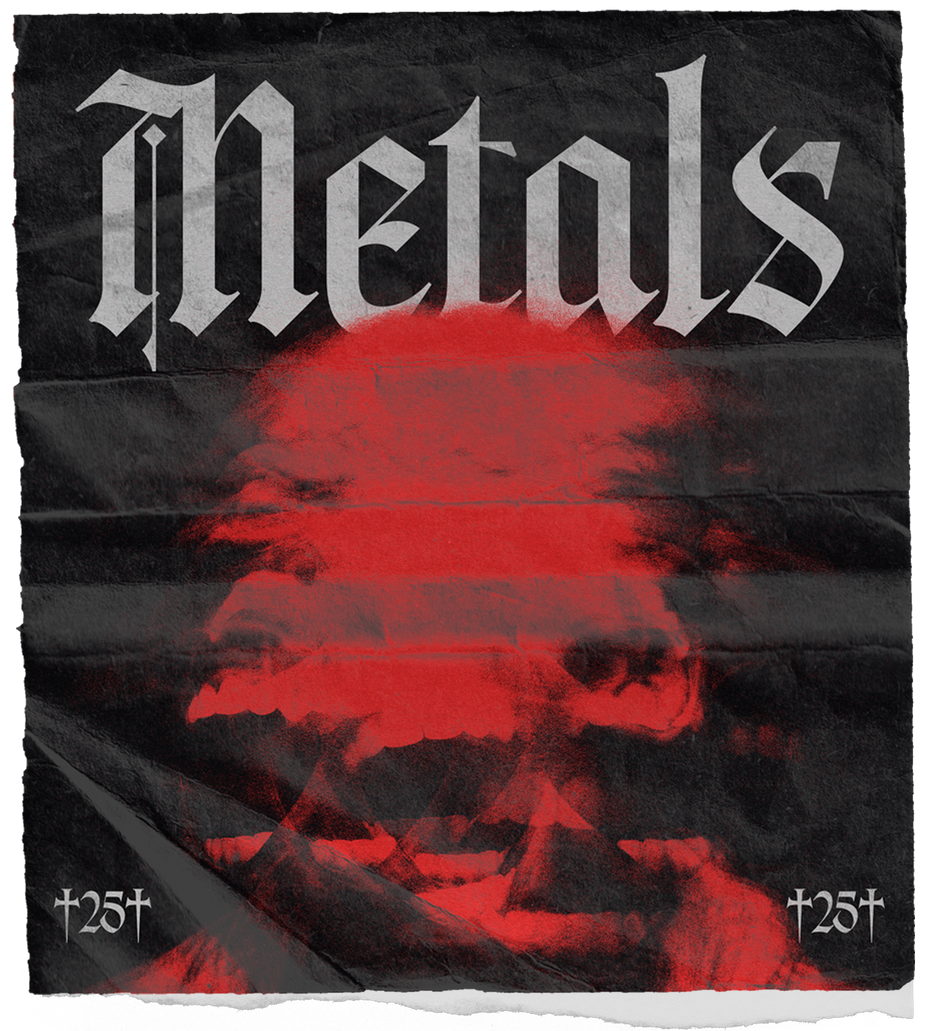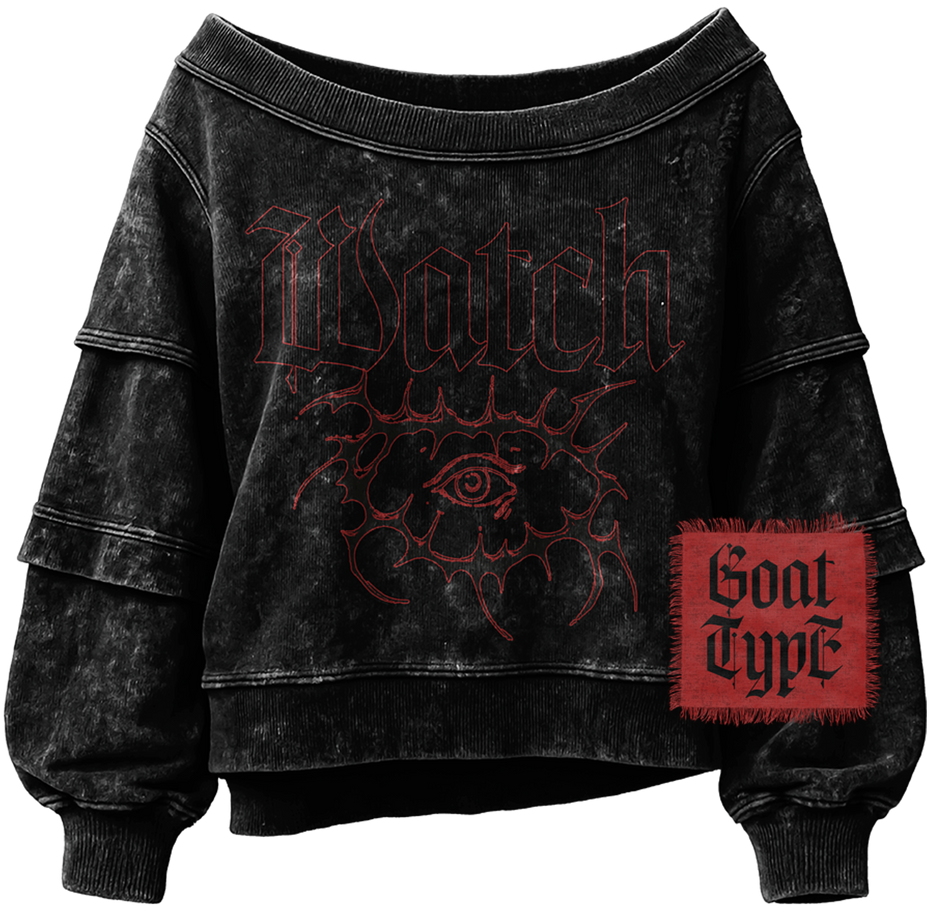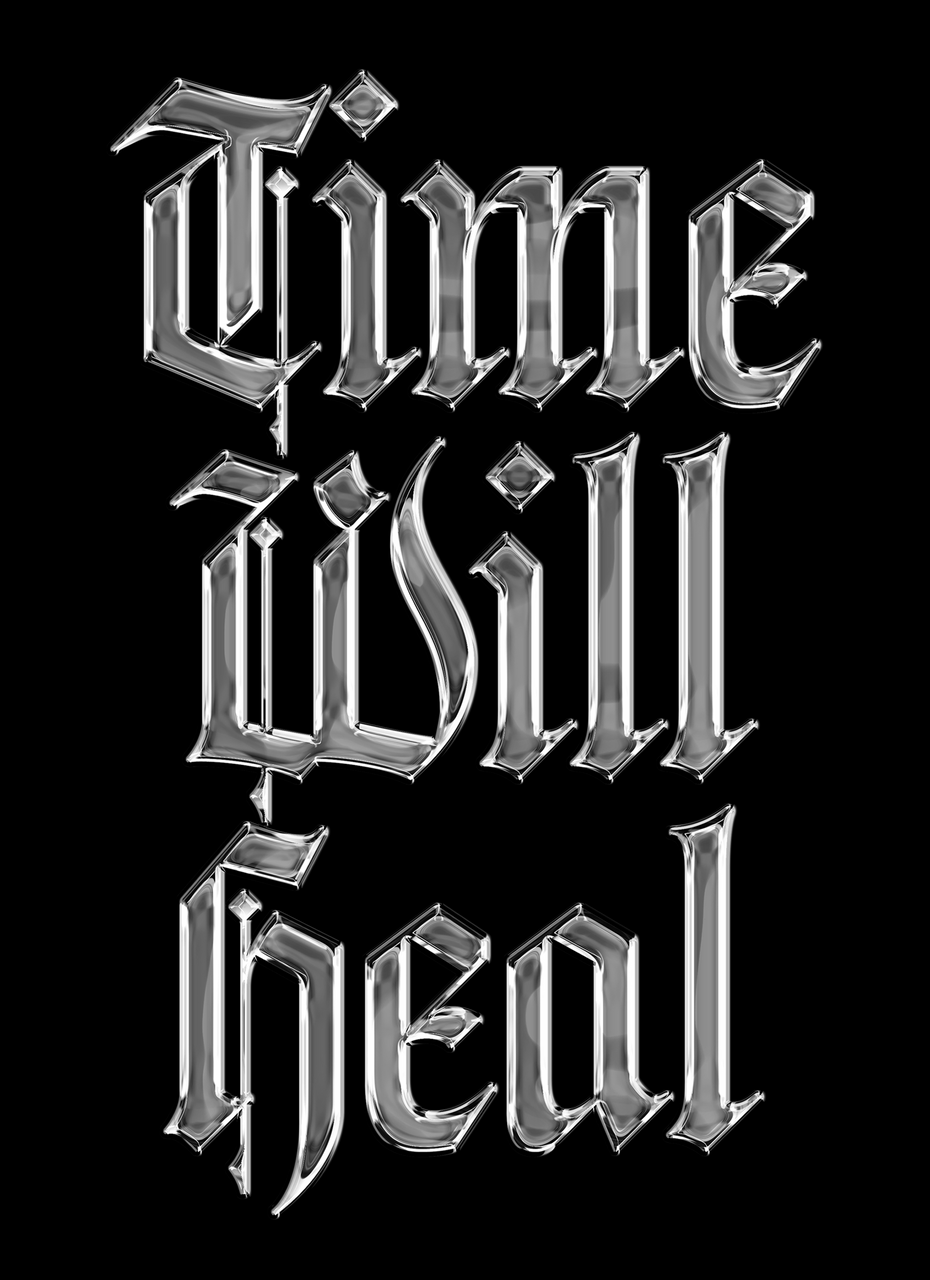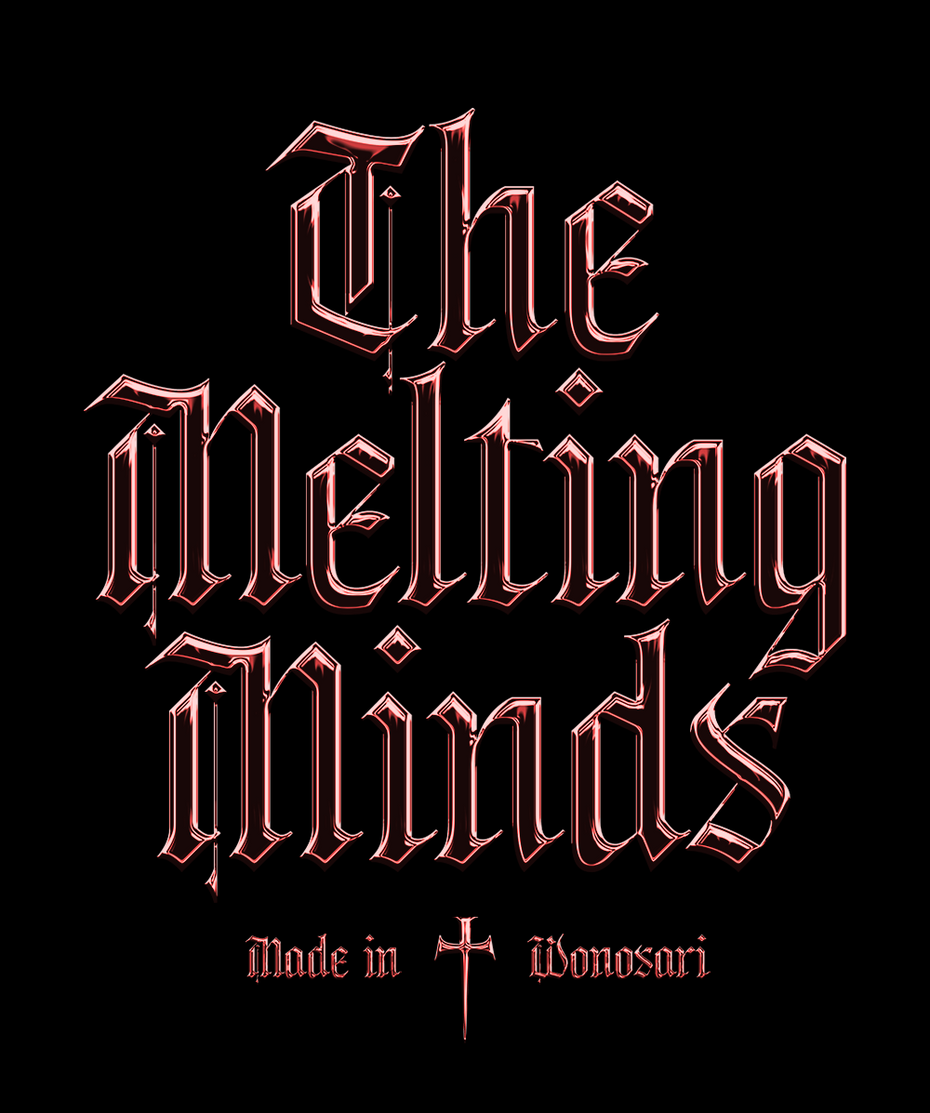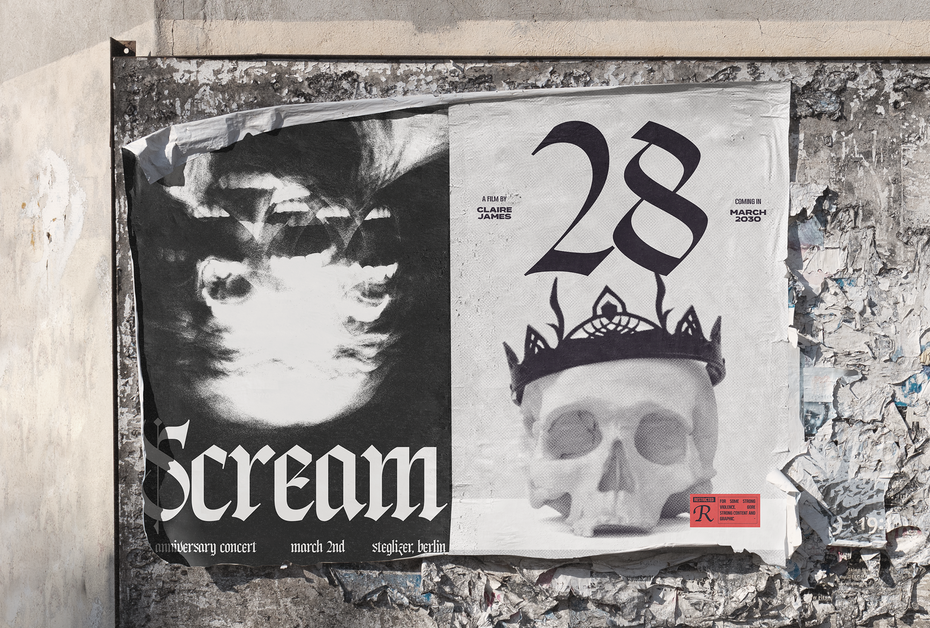
Swordsong
Latin, Cyrillic (кириллица)
Aliv Pandu, Hasto Nugroho, Andreas Rosi
Swordsong gothic blackletter display typeface used on a heavy metal album cover specimen titled "Metals", with red atomic cloud illustration and crucifix-flanked numerals on textured black paper Swordsong modern blackletter display typeface used on a metal-inspired streetwear graphic reading "The Melting Minds — Made in Wonosari", featuring chrome red rendering and gothic cross ornament Swordsong old English blackletter typeface specimen on a vintage manuscript book spread, showing display use on the title "Folklore" and readable body text in a medieval poetry layout with sword and crucifix illustrations Swordsong gothic blackletter typeface used on distressed streetwear apparel design, featuring a stonewashed sweatshirt with red "Watch" graphic and all-seeing eye illustration, plus woven blackletter patch Swordsong gothic blackletter typeface rendered as 3D liquid chrome typography reading "Time Will Heal", showcasing Y2K-inspired metallic glass effect on black background Swordsong gothic blackletter typeface on a wheatpaste poster mockup, featuring a concert poster reading "Scream" for an anniversary show in Berlin, and a horror film poster with a stylized blackletter numeral "28" and crowned skull artwork